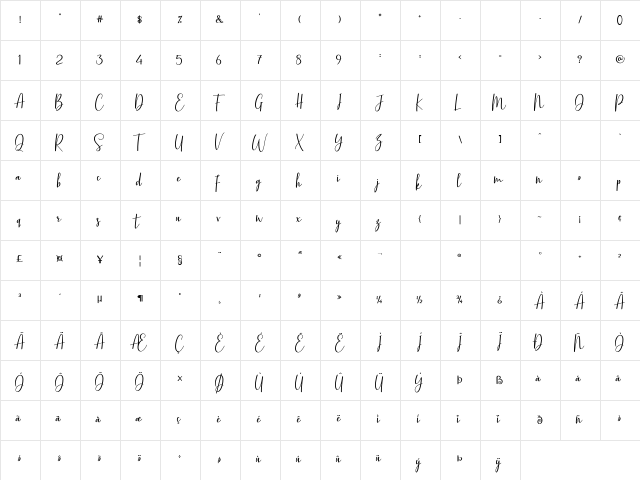
Basston Script Regular
| Foundry | Wandani Creative |
| Designer | Rizaldi Wandani |
Design Context for Basston Script Typeface
Basston Script brings a calligraphic fluidity to the page — its connecting strokes and expressive curves give it an unmistakably human quality.
Font Pairing: Combine Basston Script with a simple geometric sans for maximum contrast — the tension between flowing curves and clean structure is a classic typographic pairing.
Pro Tip: Pair Basston Script with a clean sans-serif for supporting text. The contrast between fluid script and geometric structure creates an elegant typographic hierarchy.